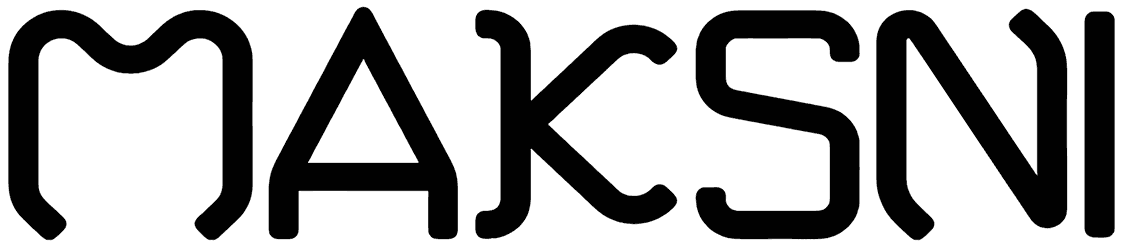
Maksni Font
Easily give your typography a clean look with a bunch of angles to create a futuristic design with this futuristic font. Maksni has round edges to give it a more sensible look and that makes it a brilliant choice for movies, games, neon lights, club signs, etc.